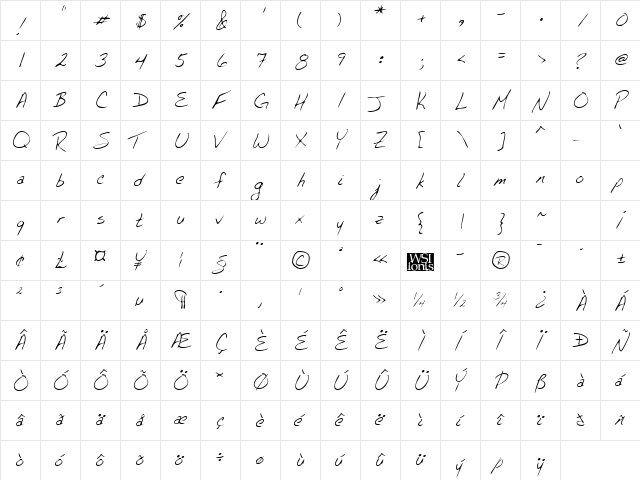
ChicksHand Regular Font Preview
ChicksHand Regular
Design Context for ChicksHand Typeface
ChicksHand brings a calligraphic fluidity to the page — its connecting strokes and expressive curves give it an unmistakably human quality.
Font Pairing: Combine ChicksHand with a simple geometric sans for maximum contrast — the tension between flowing curves and clean structure is a classic typographic pairing.
Pro Tip: Pair ChicksHand with a clean sans-serif for supporting text. The contrast between fluid script and geometric structure creates an elegant typographic hierarchy.